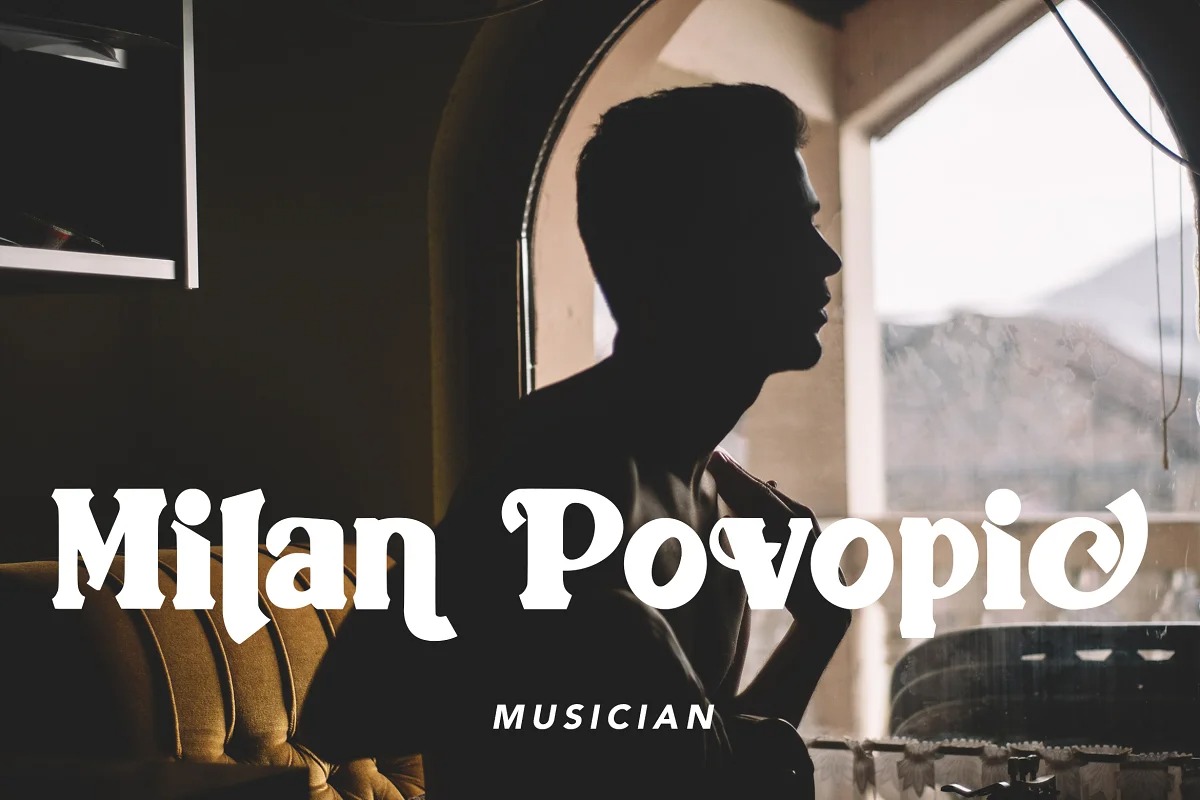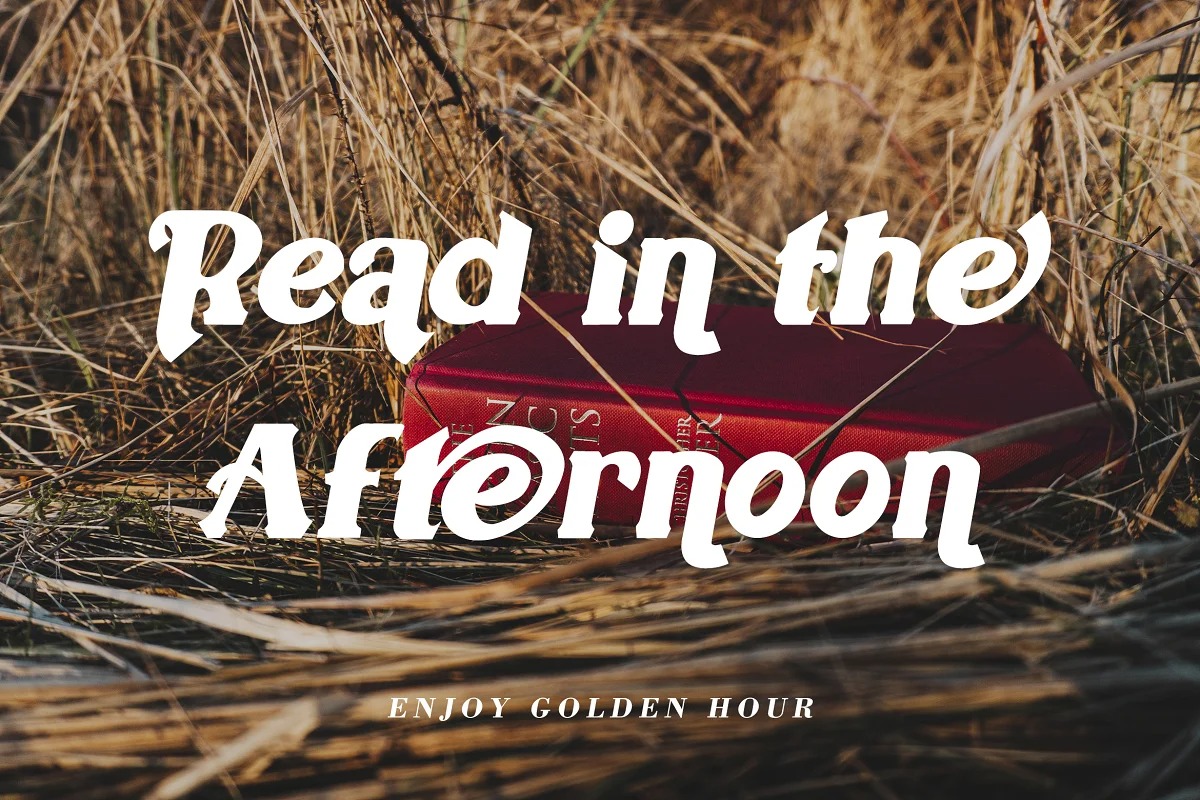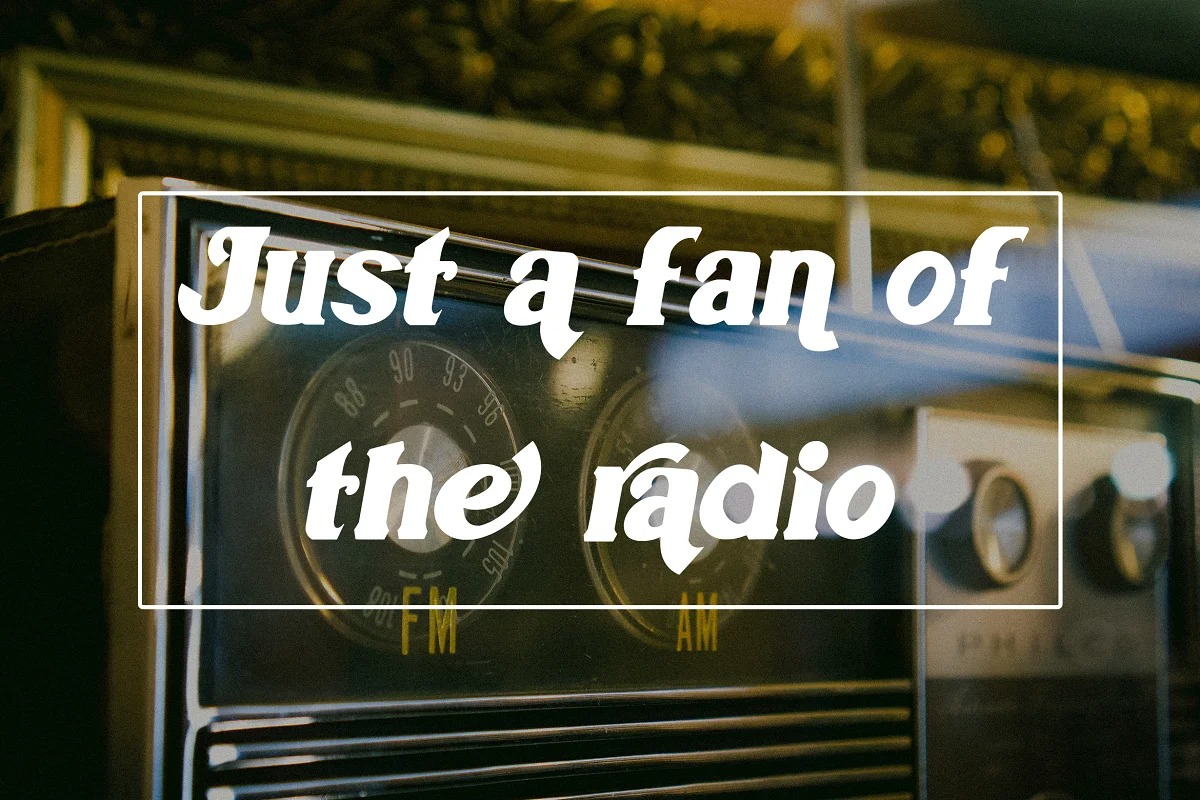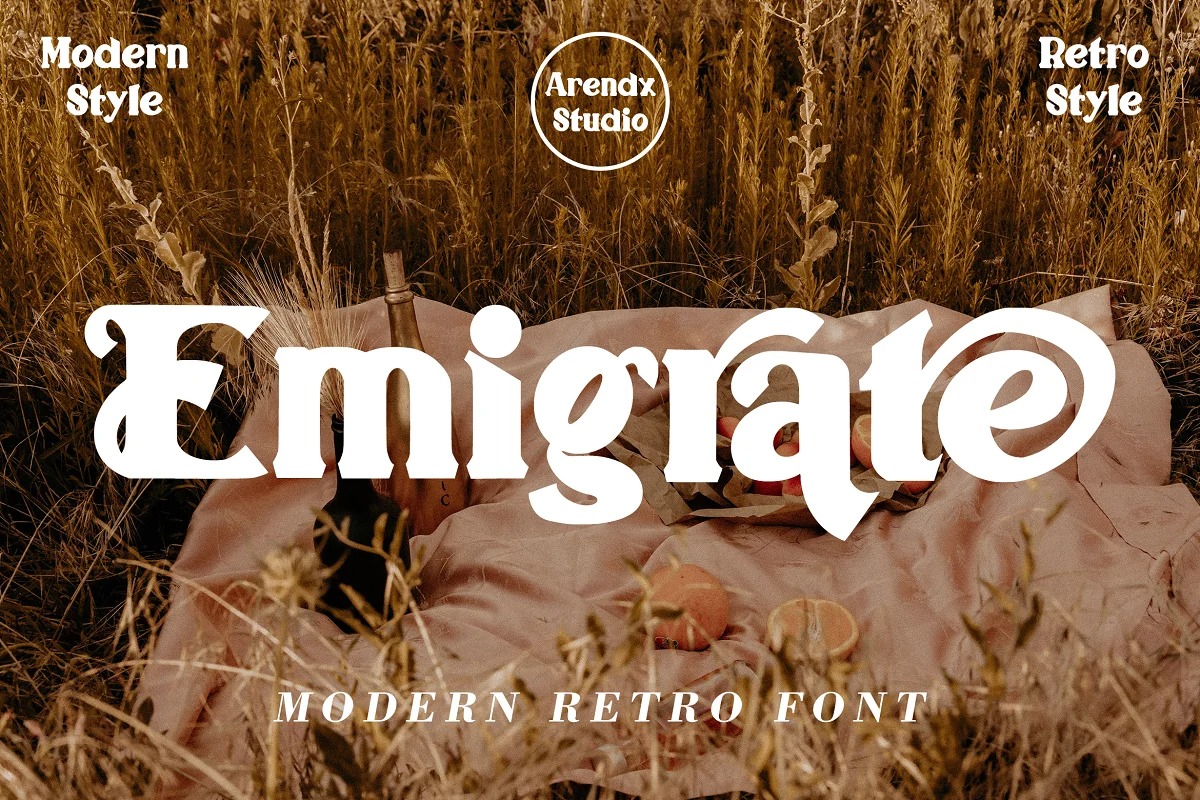
Emigrate Display Font
This is a bold display typeface created by Arendxstudio with loads of style font that uses ligatures to smoothly link letters. Perfect for branding projects, logos, wedding designs, media posts, advertisements, product packaging, product designs, labels, photography, watermarks, invitations, stationery, and any project who need handwritten dishes.